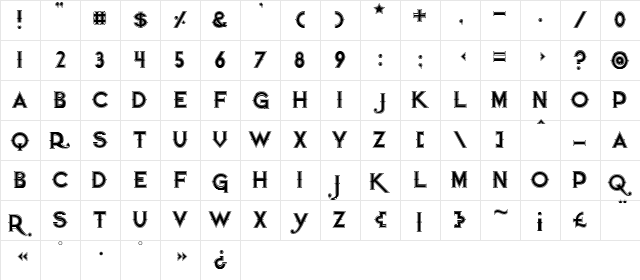
Quiet the Thief OutlinedWide
| Foundry | Matthew Tyndall |
| Designer | Matthew Tyndall |
Design Context for Quiet the Thief Typeface
Quiet the Thief is built around its visual character rather than neutral utility — its distinctive forms are designed to make an impression at display sizes.
Font Pairing: Pair with a clean neutral sans-serif for body copy to let Quiet the Thief's character lead without overwhelming the composition.
Pro Tip: Use Quiet the Thief exclusively at display sizes — it was designed to be seen, not read at length. Let a neutral companion handle body copy.